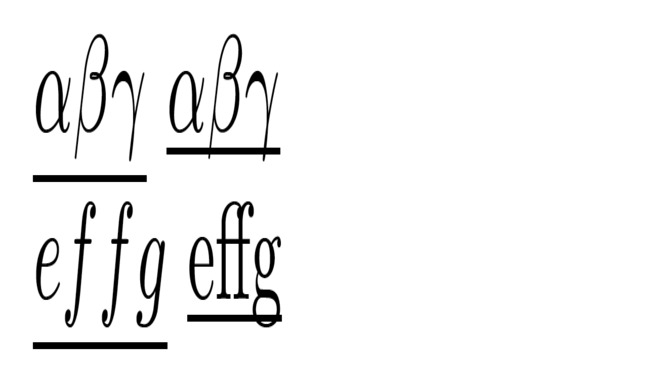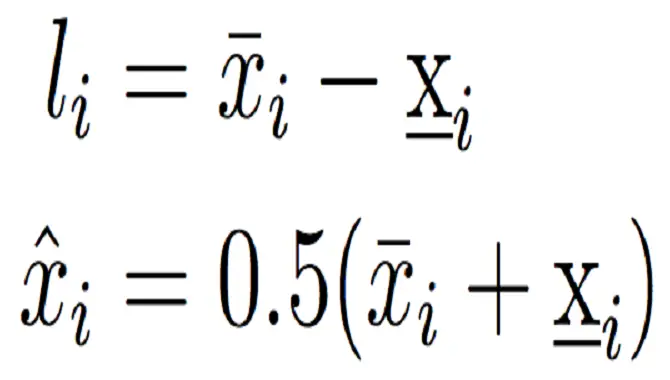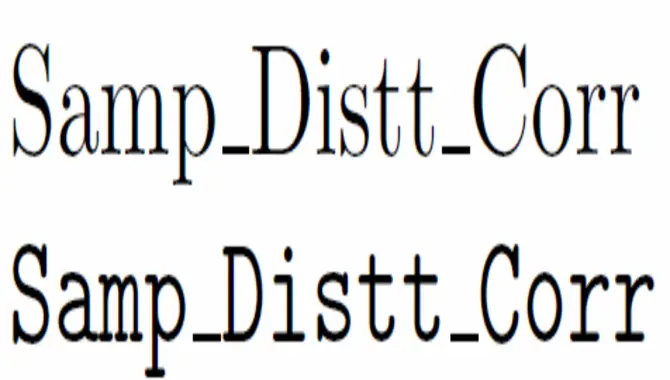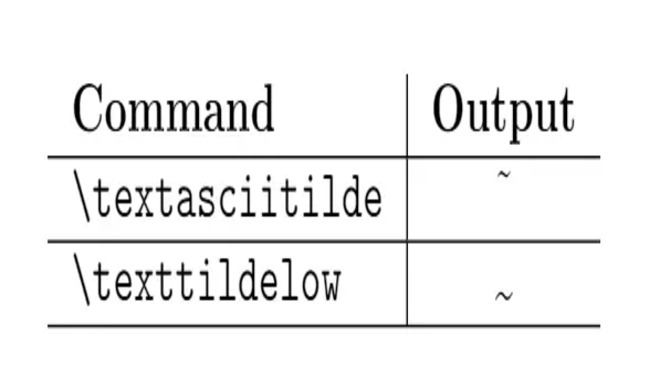
Latex Underbar is a great way to give your website a more polished look. It is an alternative to the standard HTML header, which makes your content accessible to search engines, and it is easier for users to read the text.
Latex Underbar Text Format is a simple, easy way to create a lightweight, versatile, and customizable style. The Latex Underbar Font is a great way to emphasize a document. This font is handy when adding a subtle hint of emphasis to a particular word or phrase.
We’ve used this format for our T-shirts, scarves, and accessories for years. It is a new text format for rich-text documents, allowing using any web font. This article explains how to implement Latex Underbar Font in your documents.
What’s Underbar?
Underbar Font is a modern, sans-serif typeface designed by Ohno Tsuneo, a Japanese designer. It has a unique combination of geometric shapes and curves, giving it a clean and contemporary look. This font is perfect for creating a modern, professional look for documents and web pages.
The theory of the Underbar is relatively simple. This marks written material with a textual sequence change (a topic fork, as we call it).
While this mechanism was not explicitly thought into the design, implicitly, by using another Latex symbol, such as rhombus, on your text block and starting a new paragraph – you may use one while reading…
The diagram familiar to anyone who has worked in programming shows links between paragraphs that help the reader move through a piece of text linearly and understand what is going on more quickly.
What is $$ LaTeX?
In computer science, LaTeX (derived from the French phrase ‘Laboratoire TeX / Texte Français’) is a typesetting system that produces documents in a chemical or scientific notation style.
First released by Donald E. Knuth at Stanford University in 1976 and updated ever since, it culminates today as an advanced environment for writing academic papers that have been written using other page layout languages but still maintain all the formatting of – say – an article written with Word or Scrivener.
In essence, while adding the basic markup, you fit each document character in a LaTeX table with control characters to match its position and size.
That allows the rendering engine to calculate everything within a single HTML page, still covering enough notions (see below under Definition of the Latex list structure) efficiently – but more on this later when we get into context items like formatting paragraphs as numbers.
LaTex is most often utilized on standard paper (letter) size with its tabs side by side and one grid line along with each full sheet so that it can be easily printed at 8-12 pages per page of an A4-sized book or even binder – hence its name ‘the Jesuit.’ So you need a print driver that knows how to handle it instead of your word processor.
Types of Underbars in Latex
Underbar, a font commonly used for small text or headings, comes in various styles, each with unique characteristics. Foil underbars are made from metal foil between the letterforms and the webbing. Screen underbars are made from a mesh screen stretched over the wood frame of the type case.
Goudy underbars are the most popular type, made from two metal plates fastened with screws. Lastly, Monotype underbars are drawn with a metal type set in a wooden frame. Each type serves a different purpose and can add aesthetic value to your document. Understanding these different types of Underbars will help you choose the right one for your project and make it look more professional.
Single Underbar
One underbar type in Latex is the single Underbar, which consists of one horizontal and one vertical line. This font is often used in formal or business contexts to add a touch of elegance and sophistication.
The classic look of the single Underbar makes it perfect for use in headings, titles, or other text with a high level of seriousness. Overall, the single Underbar is a versatile and stylish option for those looking to add a touch of class to their Latex formatting.
Double Underbar
One type of Underbar in Latex is the double Underbar. This undergarment is made from two pieces of Latex sewn together, creating a design that resembles the double bars on a jail cell.
Double underbars are often used in BDSM and role-playing scenes, providing extra support for breasts and adding a touch of realism to costumes. In addition, they can be used as an accent piece and come in various colors and sizes to fit any style or preference. The double Underbar is popular among latex communities, whether used for fashion or function.
Underbar in Math Mode
In Latex, several types of underbars can be used in different contexts. One popular type is the math mode underbar, often used in fonts to create a more legible typeface. Underbar is a modified lowercase letter u, with the top bar raised above the baseline.
The Underbar in math mode is also an “upside down u.” It is commonly used in mathematical notation, representing an intersection or logical conjunction. Using this Underbar typer, mathematicians and scientists can communicate complex ideas clearly and precisely. Overall, using an Underbar in math mode is an essential aspect of typography that helps convey meaning and clarity in technical writing.
4.Why Put A Pipe (|) At The Beginning Of Lines?
Ans. LaTeX primarily has commands that allow you to format text, such as \textbf and \centerline. These commands have different synonyms – like \hbox, for example – which help make it easier for them to be typed quickly without syntax errors.